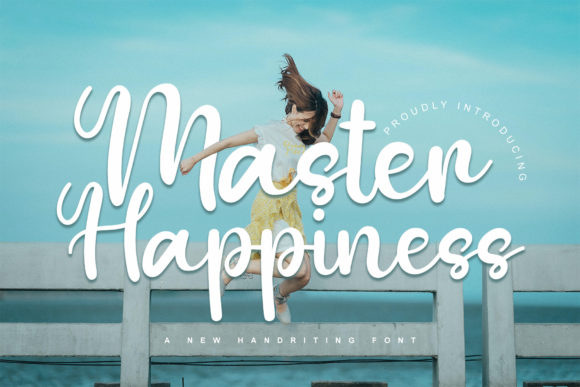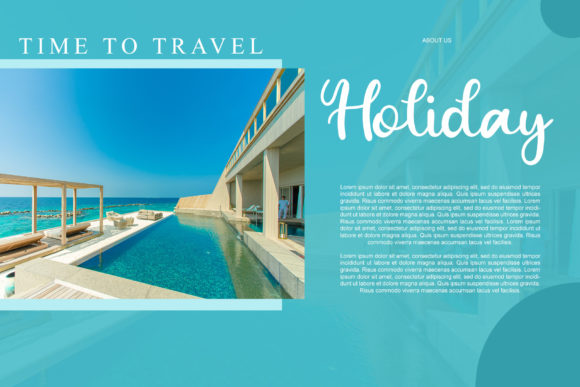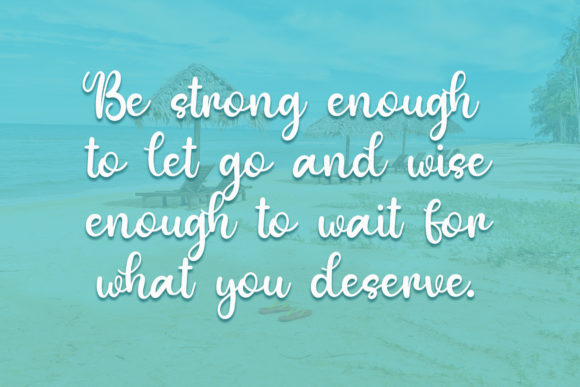
About Master Happiness Font
Master Happiness is a smooth and luxurious handwritten font. Its distinct and balanced letters make this font a masterpiece. Fall in love with its incredibly versatile style and use it to create spectacular designs!